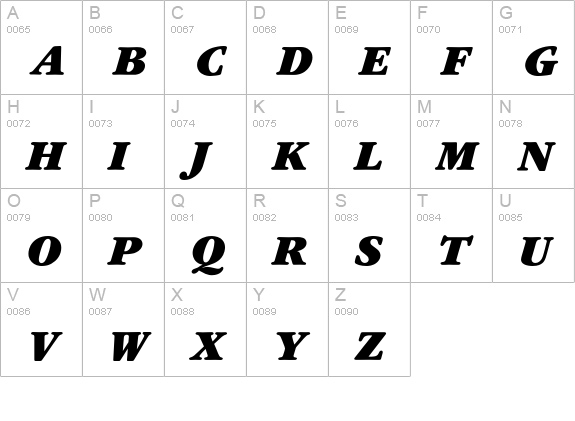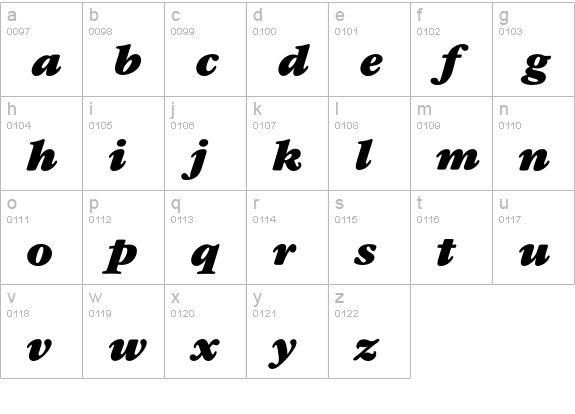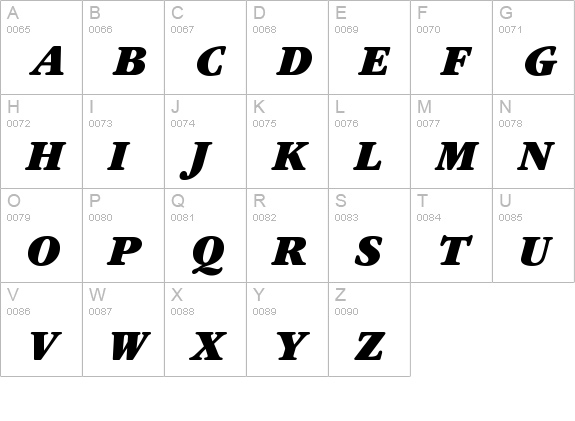
Garamond* Ultra Italic is an extreme-weight, display, italic variant in the Garamond* typeface family \xE2\x80\x94 well suited to extreme display use where maximum visual weight is required.
Garamond Ultra Italic is a stunning and elegant font that exudes sophistication and style. With its sleek and elongated letterforms, this typeface brings a touch of luxury to any design project. The delicate curves and graceful slants of Garamond Ultra Italic make it perfect for adding a touch of class to invitations, logos, and branding materials. What makes Garamond Ultra Italic even more appealing is that it is available for free download at FontsMarket.com. This means that you can add this exquisite font to your collection without breaking the bank. Whether you are a professional designer looking to elevate your designs or a hobbyist looking to add a touch of flair to your projects, Garamond Ultra Italic is sure to impress. Download it today and let your creativity soar with this beautiful and freely available typeface.